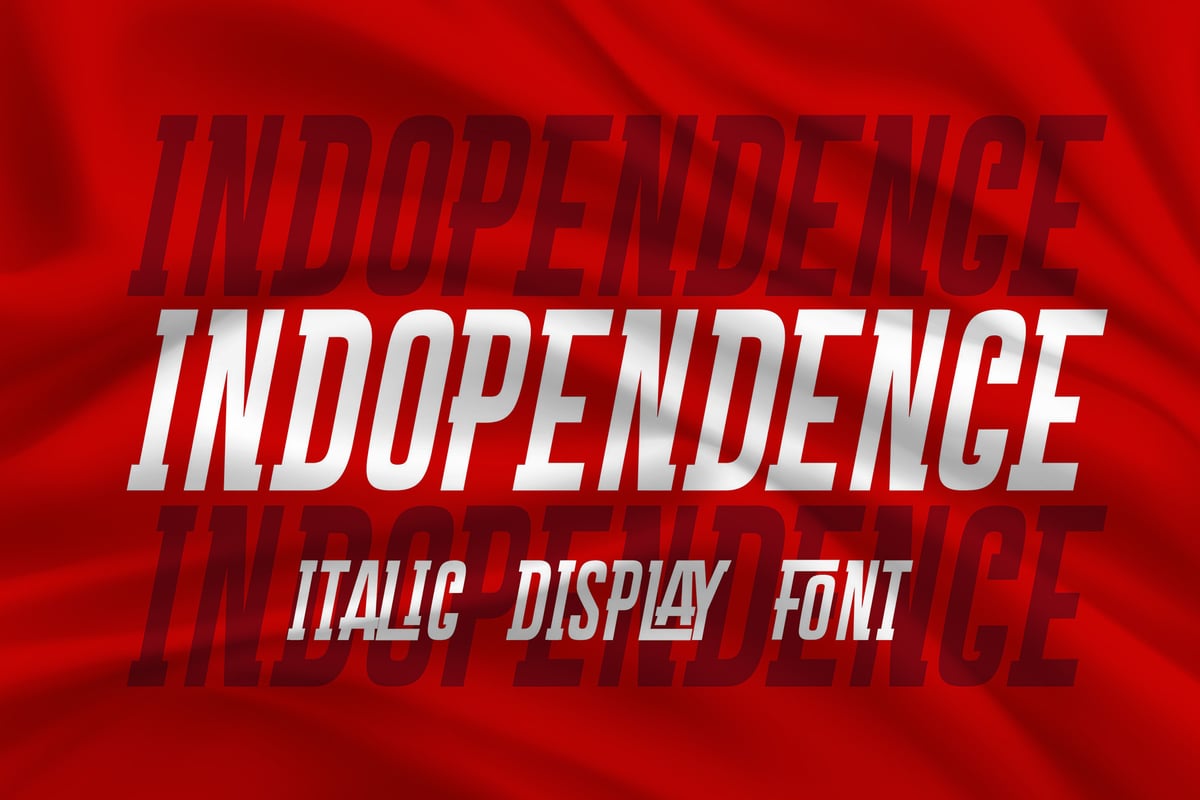
Indopendence
Indopendence is a dynamic italic display font that embodies strength, speed, and modernity. Designed with sharp, angular lines and a bold presence, this font adds a sense of motion and energy to any project.